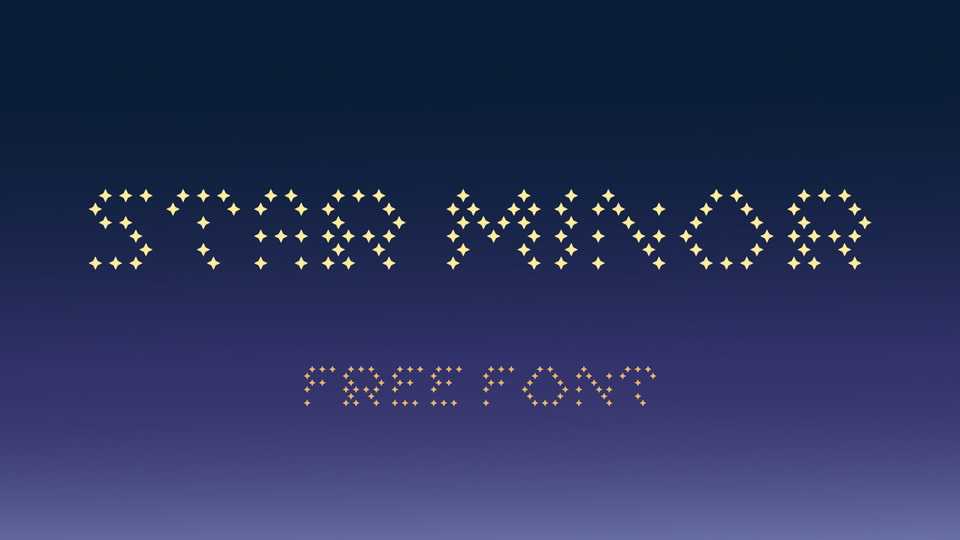
Download Star Minor font, a display typeface designed to capture the mesmerizing beauty and wonder of the night sky. Each character is meticulously crafted with a matrix of stars, creating a celestial effect that’s perfect for designs inspired by astronomy, science fiction, or a sense of cosmic exploration.